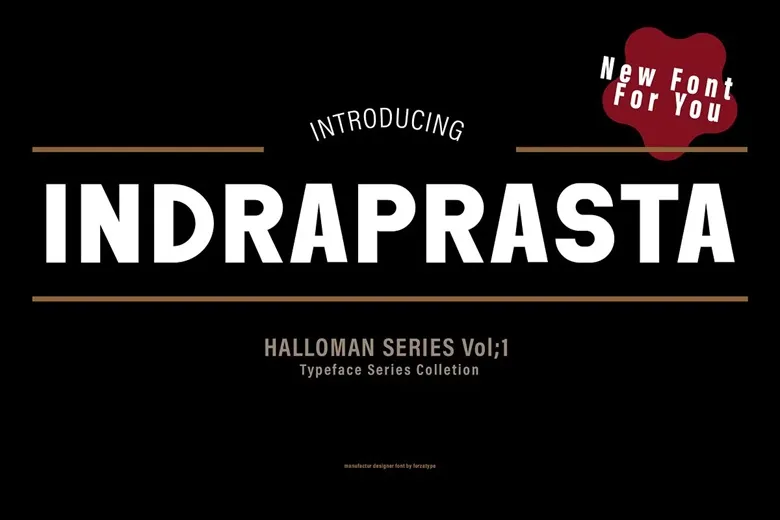
Halloman is a new sans-serif font from ForzaType, Hope that words flying on its letters inspired by cover from old books. Ideal for your display design requirements hence useful in making of notice boards, brochures and taglines in identity logos, as well as an impression that will impress the eye.